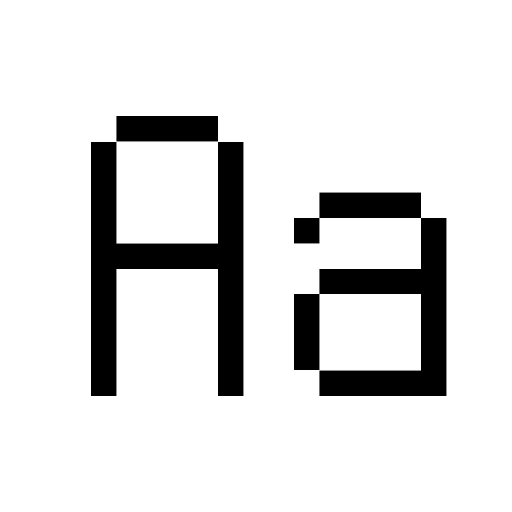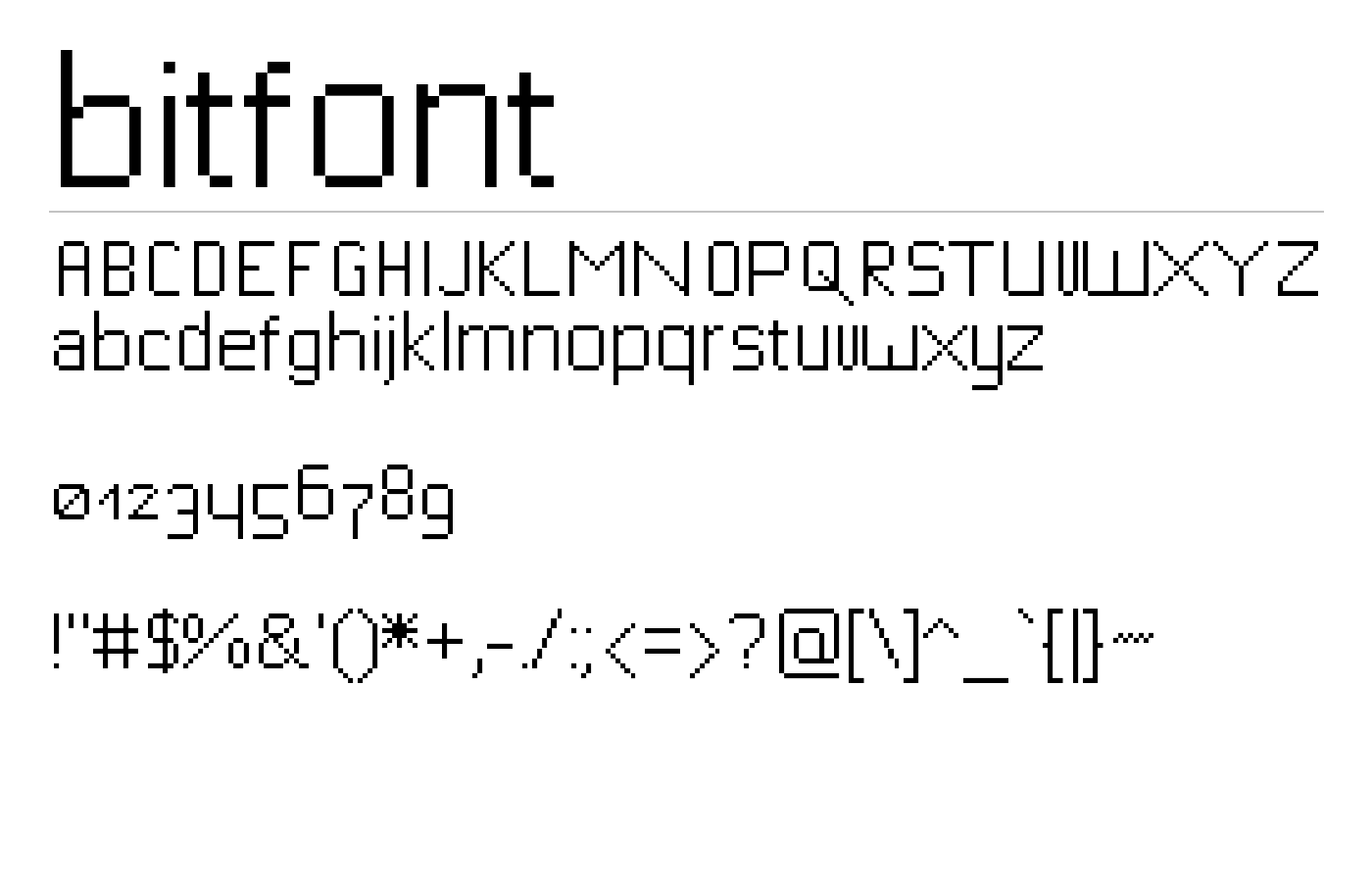
Bitfont is a pixelated sans serif typeface with a distinctive monospaced, blocky design that evokes a retro digital or video game aesthetic. Its consistent stroke weight and geometric shapes give it a clean, tech-inspired look that works perfectly for digital interfaces, coding displays, or projects seeking a nostalgic, minimalist vibe. This font is ideal for headlines, logos, and any creative work that embraces vintage computer charm or a futuristic pixel art style.